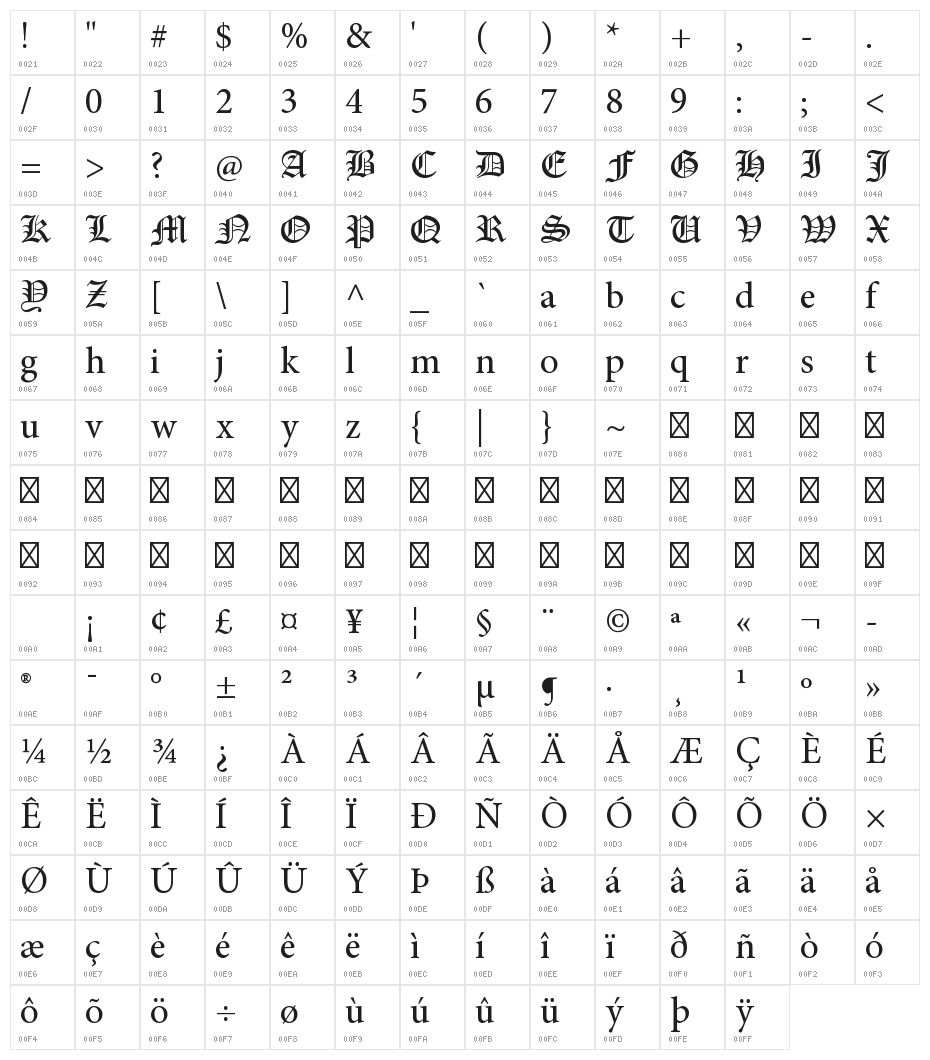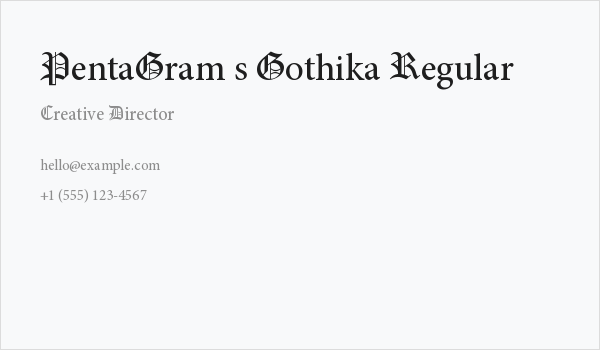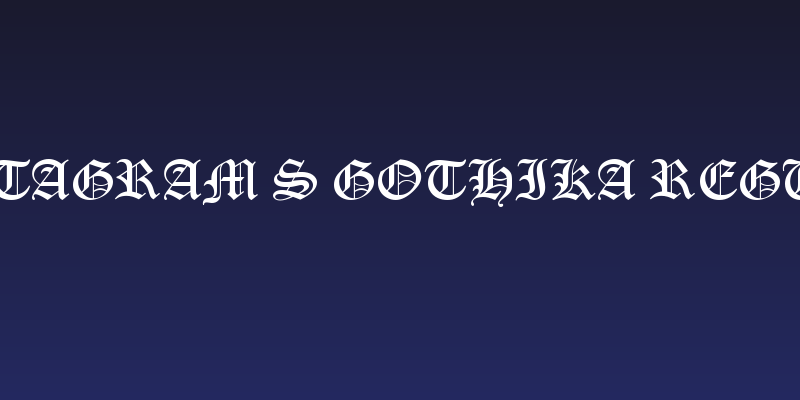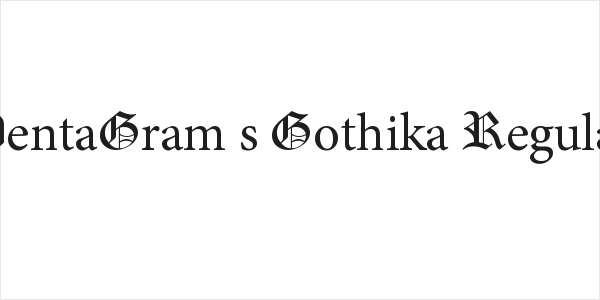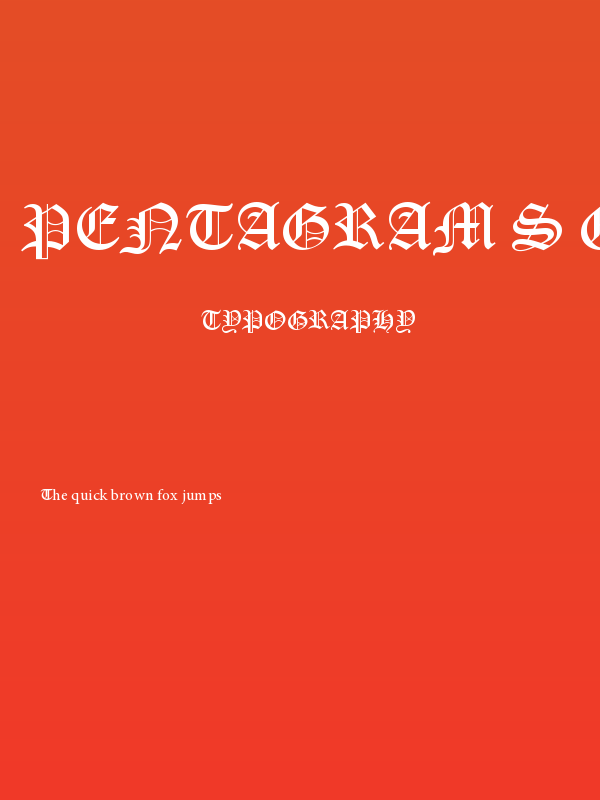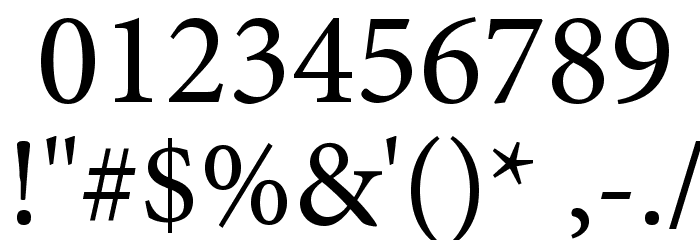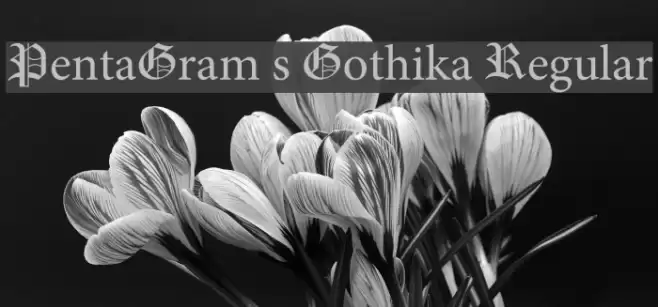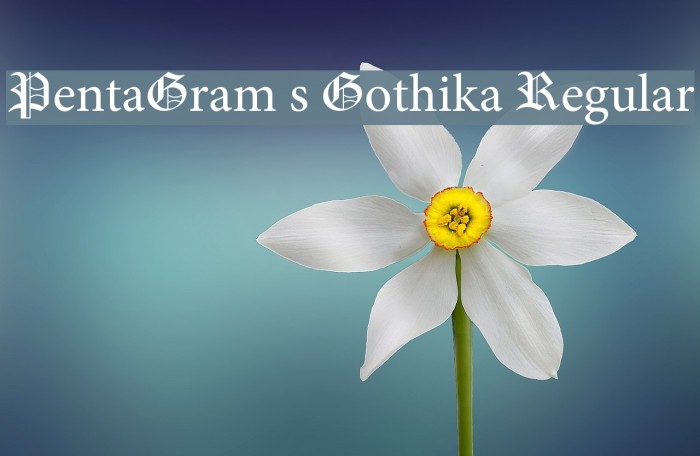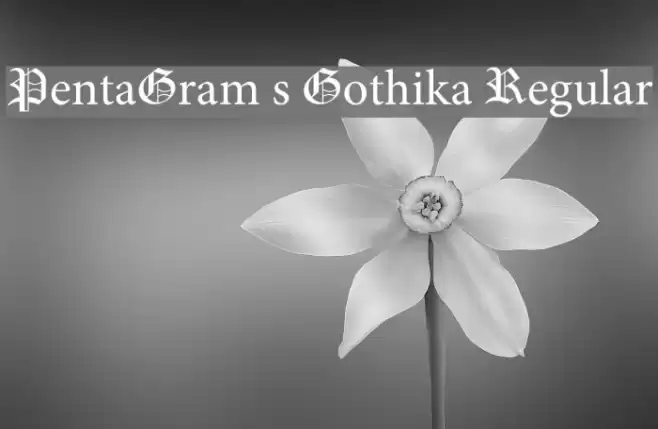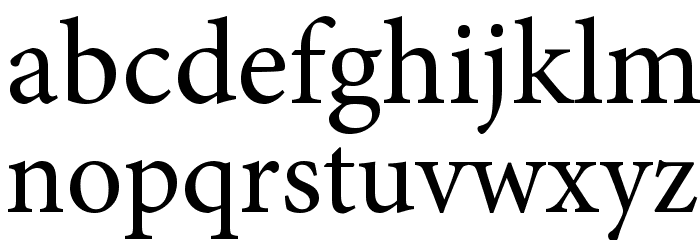
PentaGram s Gothika Regular Font
PentaGram s Gothika Regular Description
This font features a striking blend of Gothic and modern elements, characterized by its ornate and intricate uppercase letters that exhibit a traditional blackletter style. The lowercase letters are more modern and readable, with clean lines and a classic serif structure. The numerals are bold and consistent, offering a strong presence. Special characters maintain the decorative style, enhancing the font's overall aesthetic. This combination of styles makes it versatile for various design needs, balancing elegance with readability.
| Proposed Projects | Ideal for projects requiring a historical or medieval theme, such as book covers, posters, or branding for vintage products. |